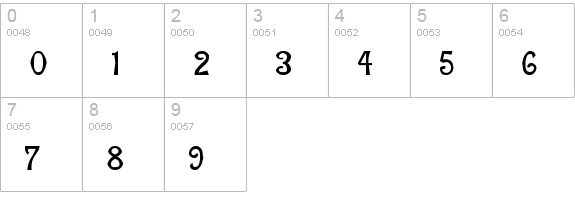
Flemish-Normal Font Details
Flemish-Normal is the standard, neutral variant in the Flemish typeface family \xE2\x80\x94 well suited to general body text, paragraphs, and standard typographic work.
Flemish-Normal font is a classic and versatile typeface that exudes elegance and sophistication. With its clean lines and balanced proportions, this font is perfect for a wide range of design projects, from elegant invitations to professional presentations. What sets Flemish-Normal font apart is its timeless appeal and readability, making it a popular choice among designers and creatives. Whether you're looking to add a touch of sophistication to your branding or need a reliable font for editorial design, Flemish-Normal font has you covered. The best part? Flemish-Normal font is available for free download at FontsMarket.com, making it easily accessible for anyone looking to enhance their design projects with this beautiful typeface. Don't miss out on the opportunity to elevate your designs with Flemish-Normal font today!